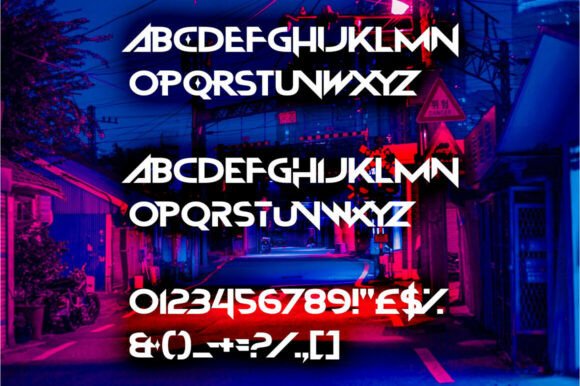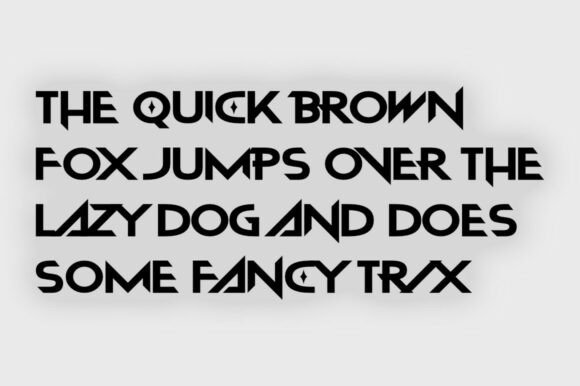
Introduction to Hunters K-pop Font
Add a Korean music vibe to your creations with our new font Hunters K-Pop.
The sharp, straight edges and cut out counters have a distinctive vibe common in techno music, dubstep and of course, K-pop This font will look great on album covers, in streams and video games alike.
Key Features of Hunters K-pop Font
Why Choose Hunters K-pop Font?
Hunters K-pop Font offers exceptional quality and versatility, making it a valuable addition to your design toolkit. Whether you’re creating for personal projects or commercial use, Hunters K-pop Font delivers professional results.